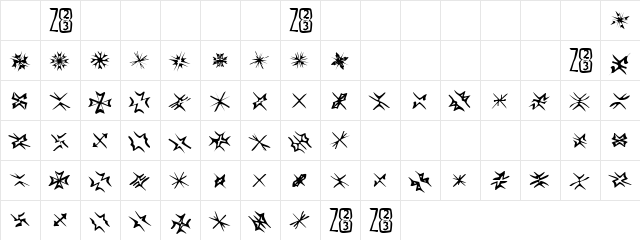
Zone23_foopy3 Normal Font Preview
Zone23_foopy3 Normal
Design Context for Zone23_foopy3 Typeface
Zone23_foopy3 is a composed and adaptable typeface that performs quietly and consistently across a wide range of design contexts.